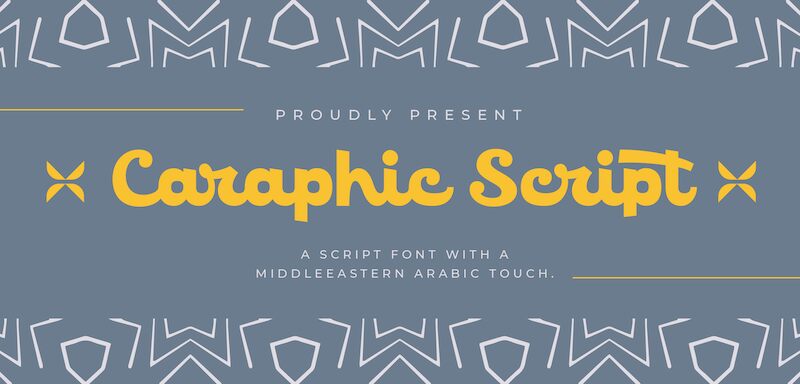
Caraphic Script, designed by Mans Greback, is a bold and semi-expanded handwritten font that effortlessly combines the elegance of script typefaces with the intricate beauty of Middle Eastern design.
Its strong and assertive strokes demand attention while maintaining a sharp clarity for optimal readability. With its professional balance and seamless support for both Latin and Arabic scripts, Caraphic Script is ideal for logotypes and branding projects that require a touch of sophistication. This versatile typeface transcends borders and cultures, making it a powerful global statement.
Offering advanced OpenType functionality, extensive language support, and a wide range of stylistic features, Caraphic Script gives you full control to create personalized designs that truly stand out.